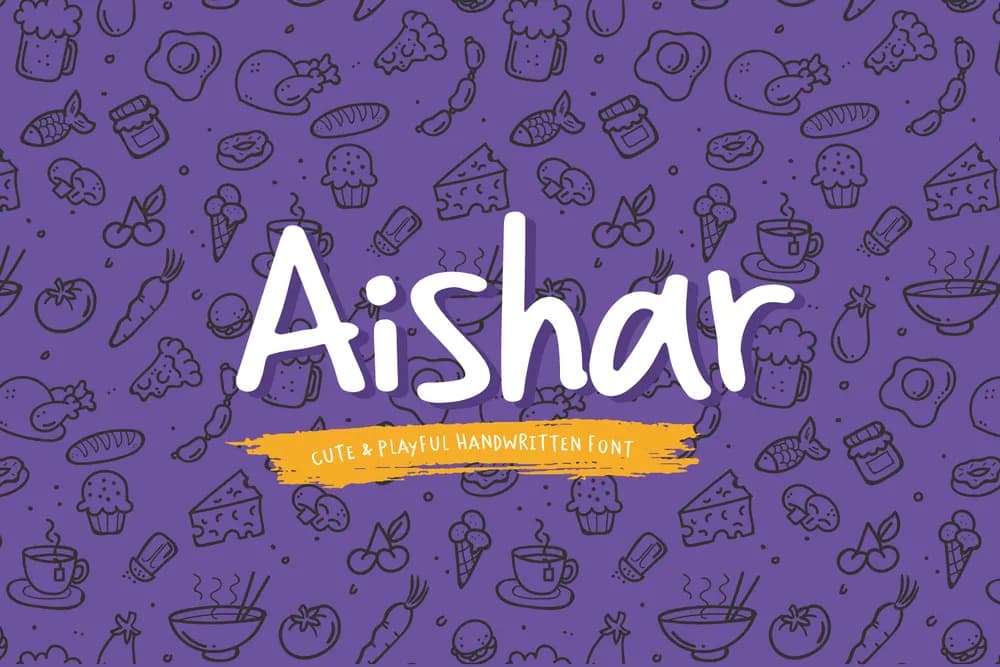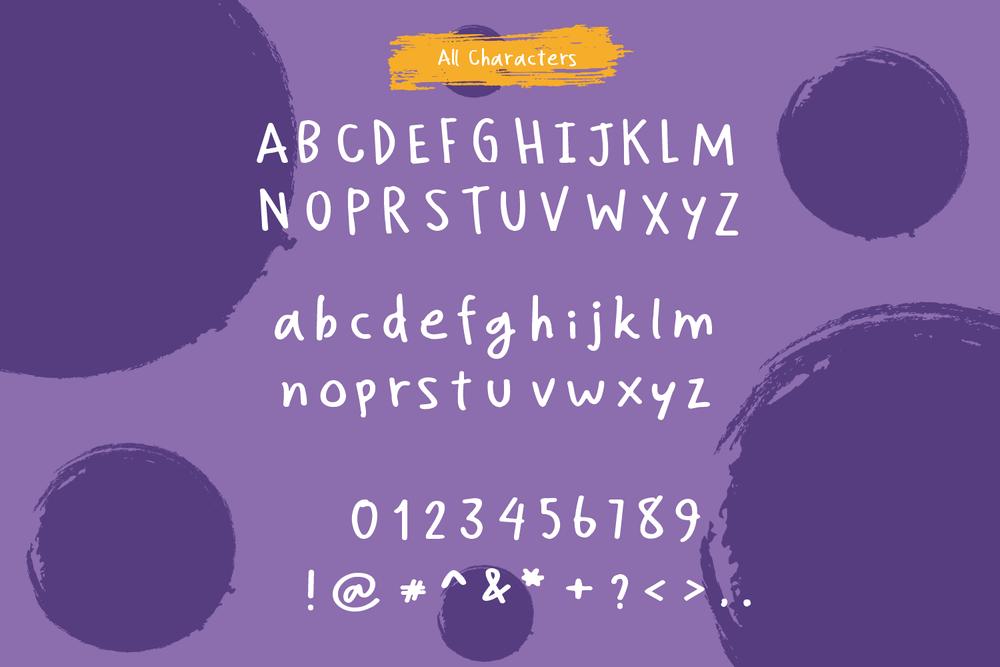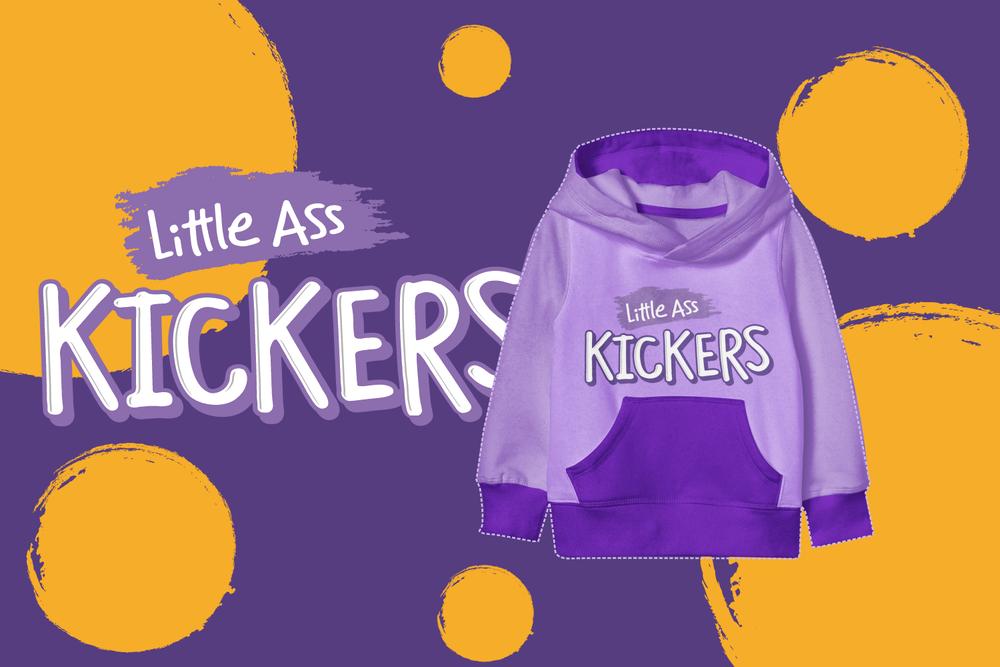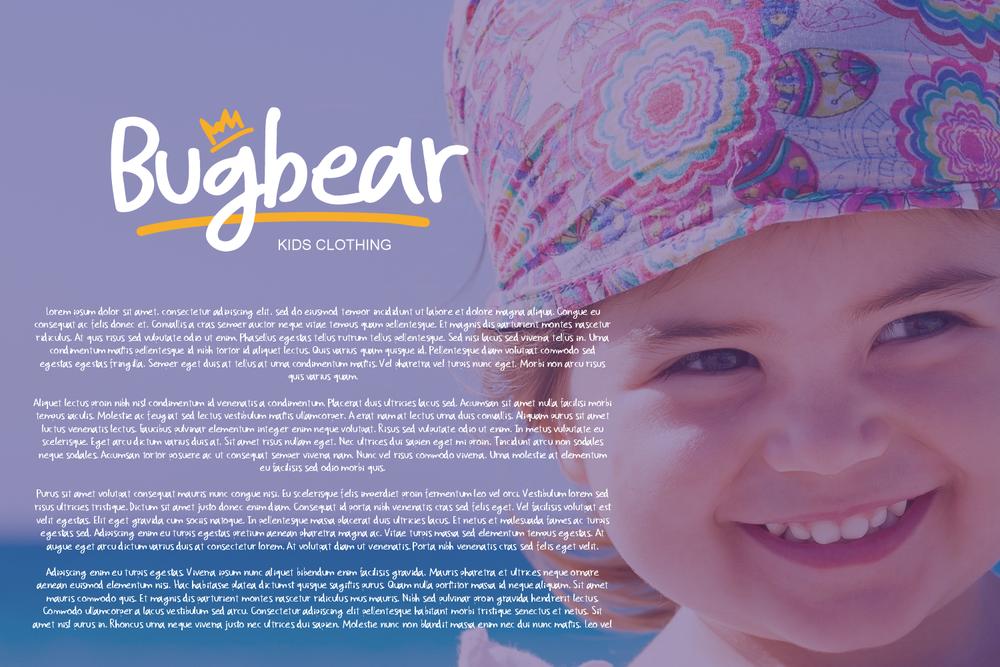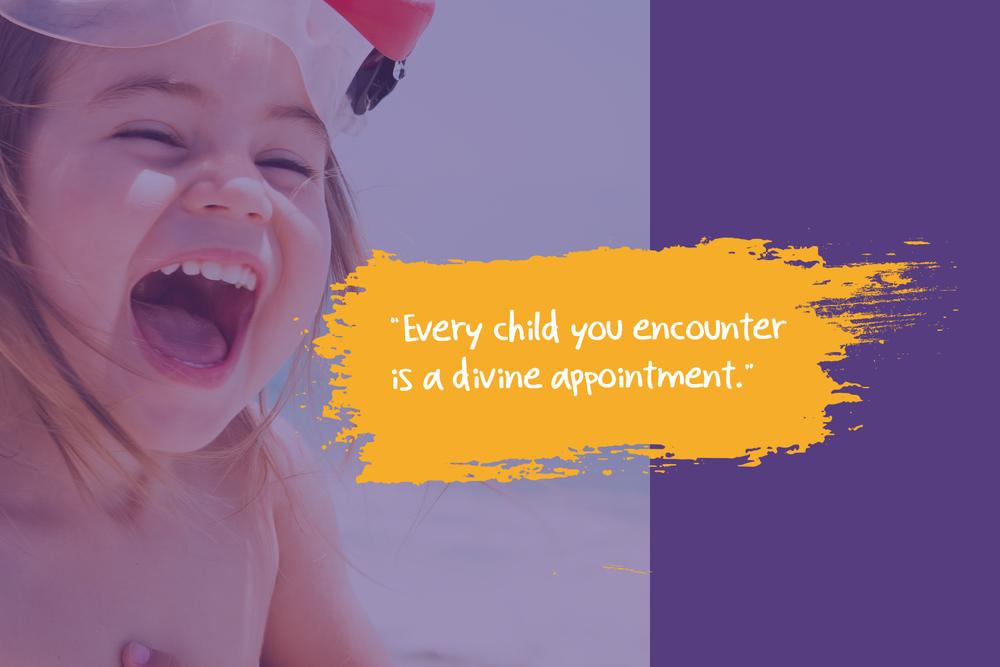
Aishar Handwritten font style is a lovely typeface with a cheerful theme, so beautiful on invitations like greeting cards, branding materials, business cards, quotes, posters, and more!